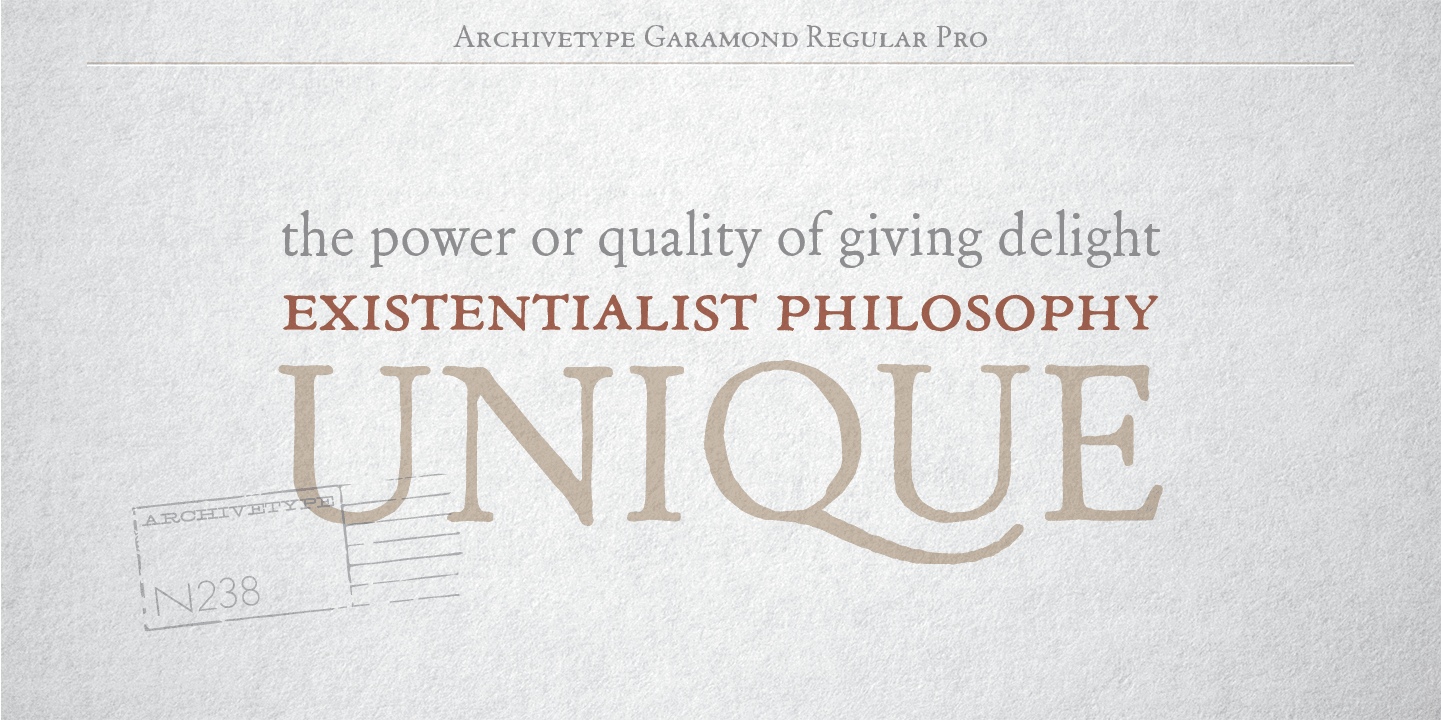
Archive Garamond Font
Archive Garamond Font serves as an exceptional choice for book publishing, editorial design, academic papers, literary magazines, historical documentaries, museum catalogs, vintage branding projects, classical music album covers, fine art exhibitions, luxury product packaging, wedding invitations, and sophisticated web typography where traditional elegance meets contemporary functionality.
This remarkable typeface generates excitement through its perfect fusion of historical authenticity and modern digital precision. Archive Garamond Font captures the timeless essence of Claude Garamond's 16th-century masterpiece while incorporating contemporary refinements that enhance readability across digital platforms. The font's distinctive character lies in its subtle irregularities and organic warmth, which create a human touch often missing in sterile digital typography. Its carefully crafted letterforms demonstrate exceptional attention to detail, featuring graceful serifs, balanced proportions, and rhythmic flow that guides readers effortlessly through lengthy texts.
The Archive Garamond Font family encompasses multiple weights and styles including Regular, Italic, Bold, Bold Italic, Light, Light Italic, Medium, and Medium Italic variations. Each weight maintains the font's characteristic elegance while offering designers flexibility for hierarchical text organization. The extensive character set supports multiple languages and includes specialized glyphs for professional typographic requirements.
Professional designers consistently choose Archive Garamond Font Free Download for projects demanding sophisticated typography that bridges classical tradition with modern sensibilities. This versatile typeface excels in both print and digital applications, maintaining its distinctive character across various sizes and resolutions. The font's exceptional legibility makes it particularly valuable for extended reading experiences, while its refined aesthetic elevates any design project.
Whether you're developing a literary publication, creating brand identity for luxury goods, designing educational materials, or crafting memorable marketing collateral, Archive Garamond Font delivers unmatched typographic excellence. Its timeless appeal ensures your designs will maintain their sophistication and relevance for years to come. The font's ability to convey authority, elegance, and accessibility simultaneously makes it an invaluable addition to any designer's typography toolkit, offering endless possibilities for creative expression while honoring centuries of typographic tradition.